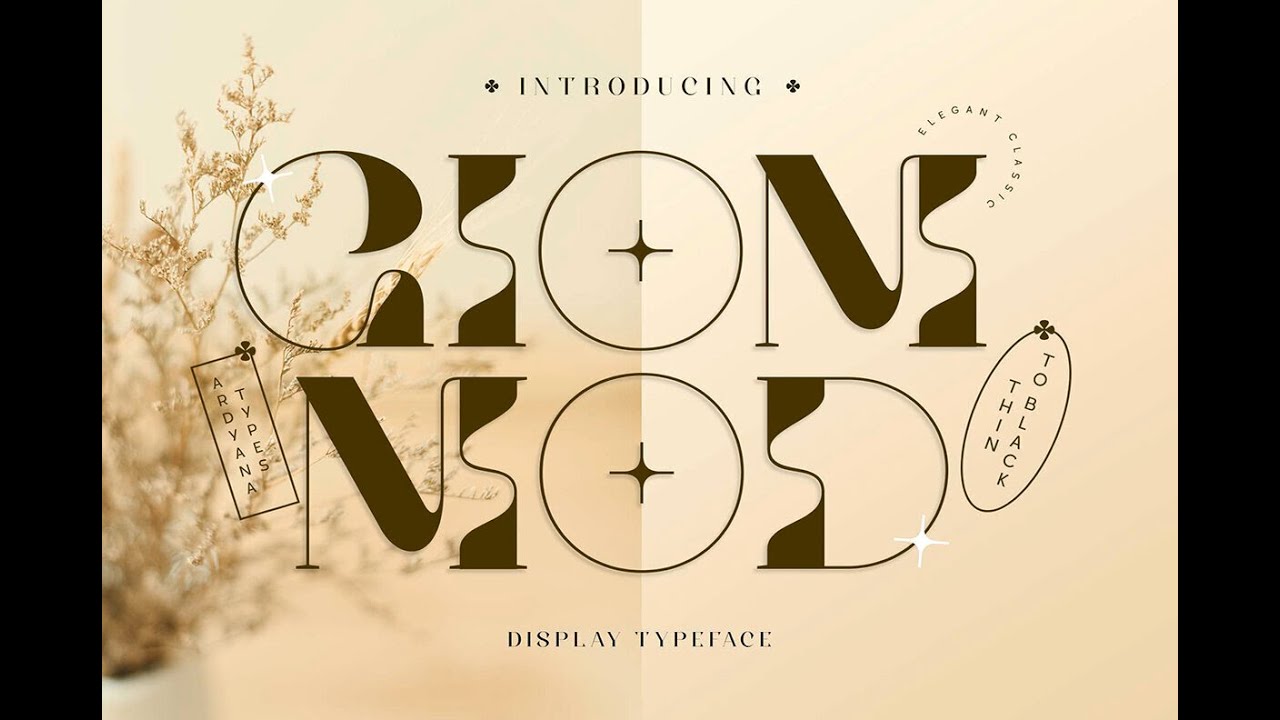
Giom Mod Font â º Fontesk Thank you for visiting and for downloading and using our fonts. please note that this version is only permitted for personal use. use for commercial needs projects is not allowed for any reason! your project with commission or profit is not allowed!. Giom mod font by ardyanatypes download free for personal use add to favorites donate share bold elegant serif modern fashion luxury magazine large x height high contrast haute couture.
Giom Mod Font â º Fontesk Download free giom mod font, view its character map and generate text based images or logos with giom mod font online. Download giom mod font for pc mac for free, take a test drive and see the entire character set. moreover, you can embed it to your website with @font face support. Font giom mod regular. examples of this font can be found on the font site befonts – free fonts download, designed by ardyana putra, include the number of glyphs 148 characters. Giom mod font download is available free from fontget. giom mod is a basic type font that can be used on any device such as pc, mac, linux, ios and android. this font has 1 variant available.
Giom Mod Font Madfonts Font giom mod regular. examples of this font can be found on the font site befonts – free fonts download, designed by ardyana putra, include the number of glyphs 148 characters. Giom mod font download is available free from fontget. giom mod is a basic type font that can be used on any device such as pc, mac, linux, ios and android. this font has 1 variant available. Download giom mod font from free cdn or use it on your website as webfont. So, if you are looking for a font that combines the beauty of serif with various thickness options, useful opentype features, and multilingual support, giom mod is the perfect choice to meet your design needs. Giom mod, designed by ardyana putra of ardyanatypes, is an elegant serif font with a unique style. with its semi light weight, this font is perfect for creating light and sophisticated designs. Free download of giom mod font. released in 2023 by ardyanatypes and licensed for personal use only. use our font generator to create a custom image that you can download.
Giom Mod Font Madfonts Download giom mod font from free cdn or use it on your website as webfont. So, if you are looking for a font that combines the beauty of serif with various thickness options, useful opentype features, and multilingual support, giom mod is the perfect choice to meet your design needs. Giom mod, designed by ardyana putra of ardyanatypes, is an elegant serif font with a unique style. with its semi light weight, this font is perfect for creating light and sophisticated designs. Free download of giom mod font. released in 2023 by ardyanatypes and licensed for personal use only. use our font generator to create a custom image that you can download.
Giom Mod Font Dafont Giom mod, designed by ardyana putra of ardyanatypes, is an elegant serif font with a unique style. with its semi light weight, this font is perfect for creating light and sophisticated designs. Free download of giom mod font. released in 2023 by ardyanatypes and licensed for personal use only. use our font generator to create a custom image that you can download.